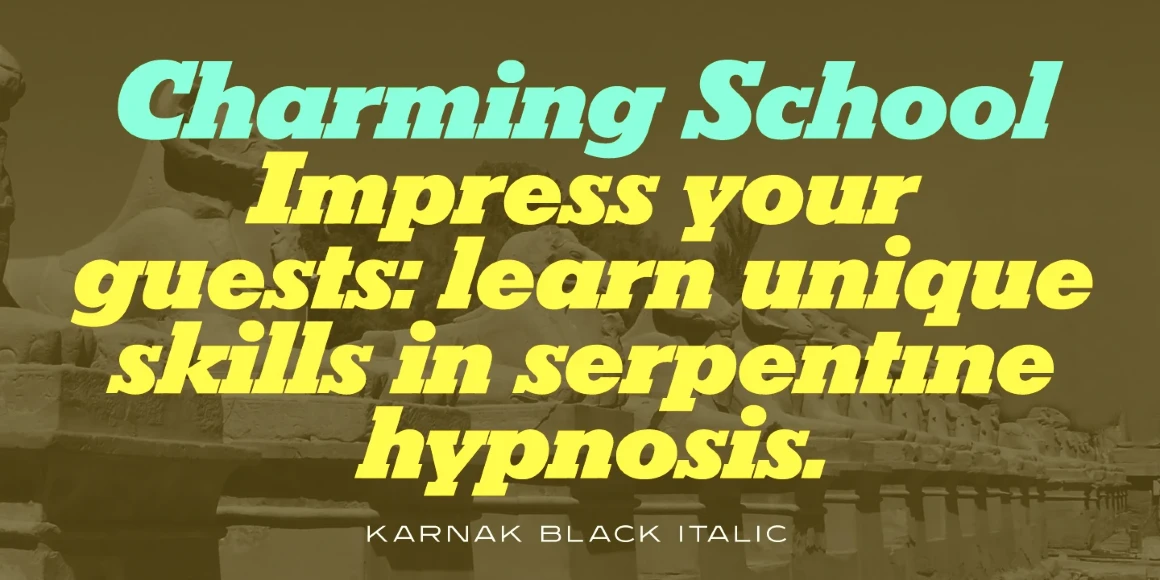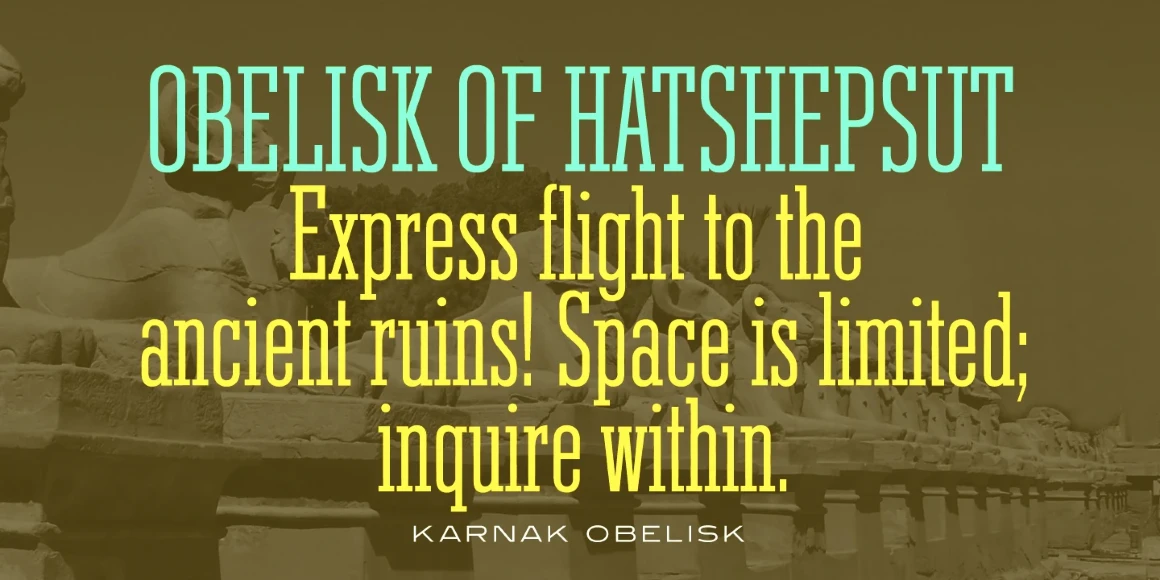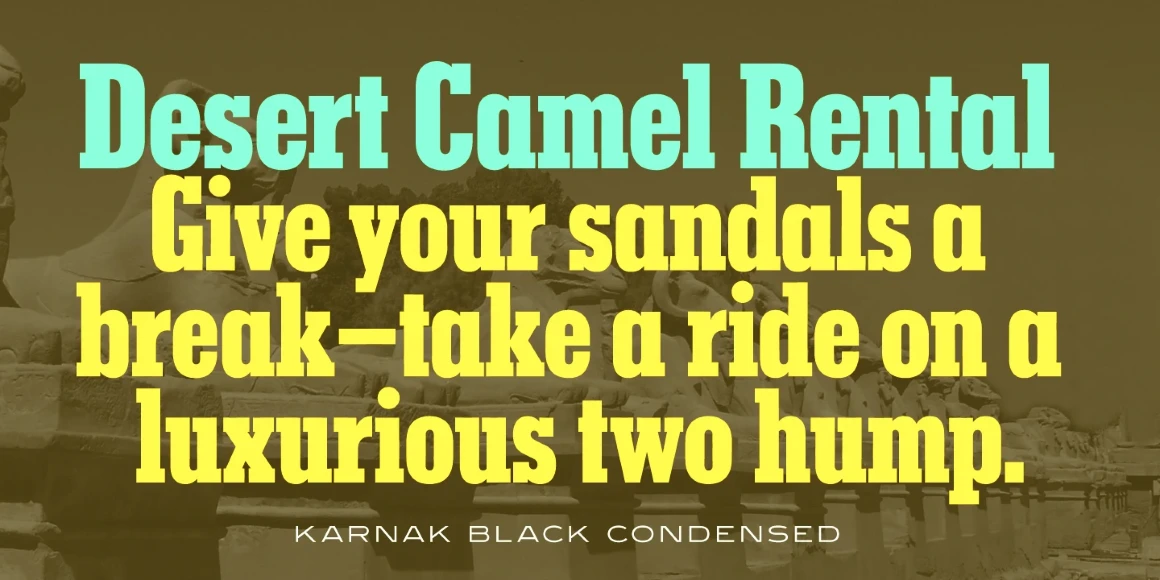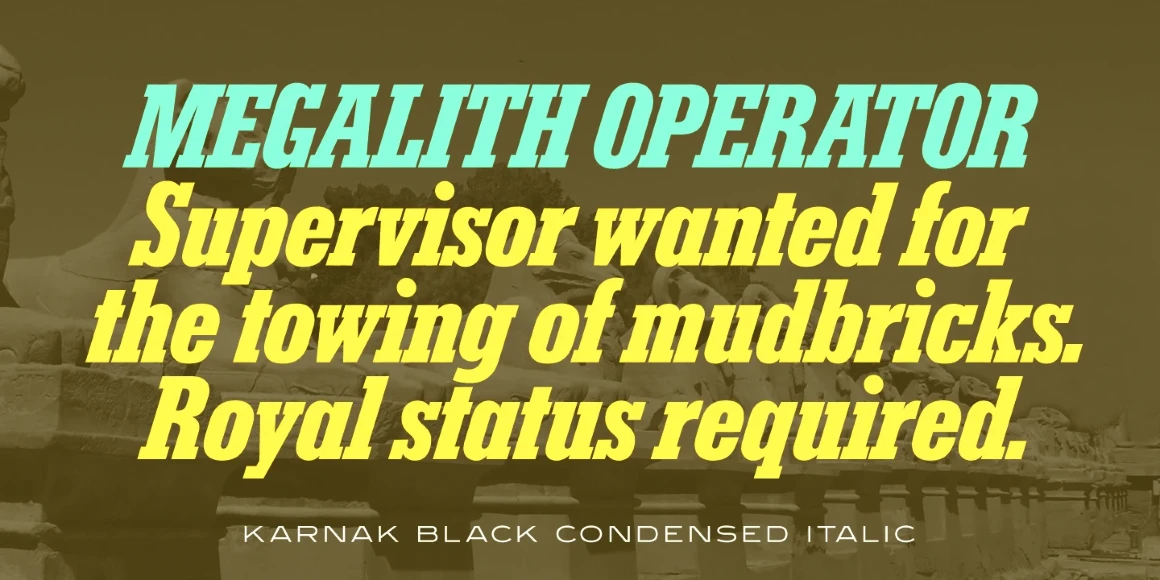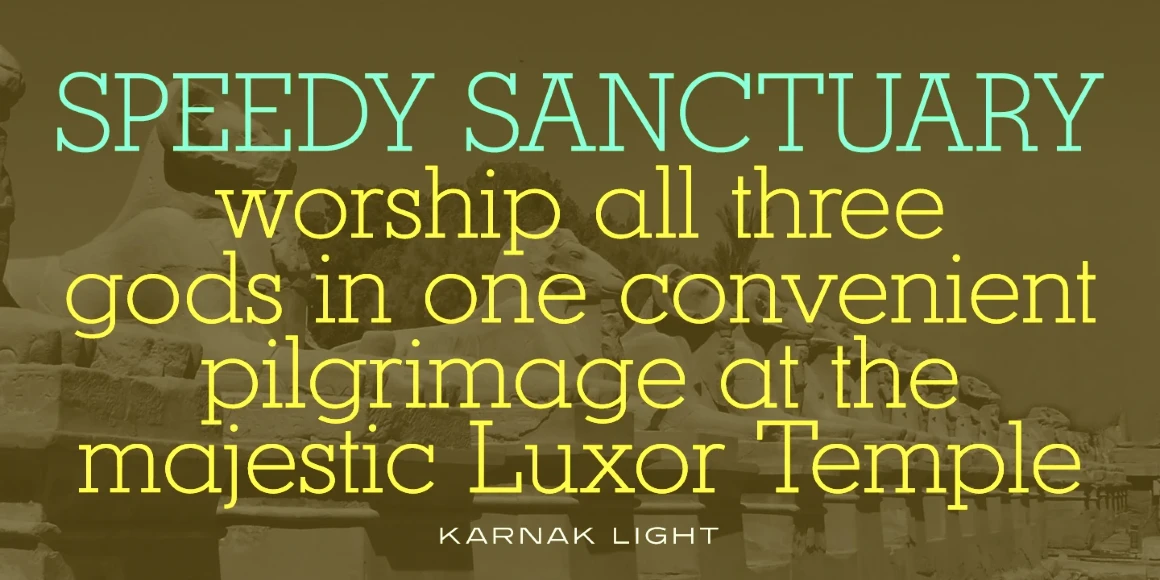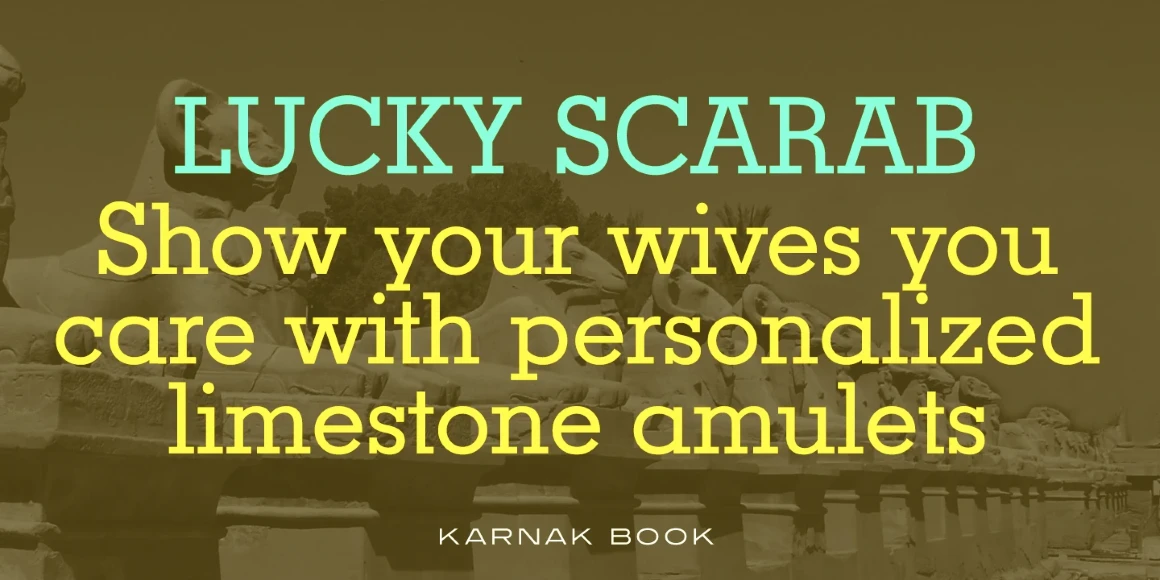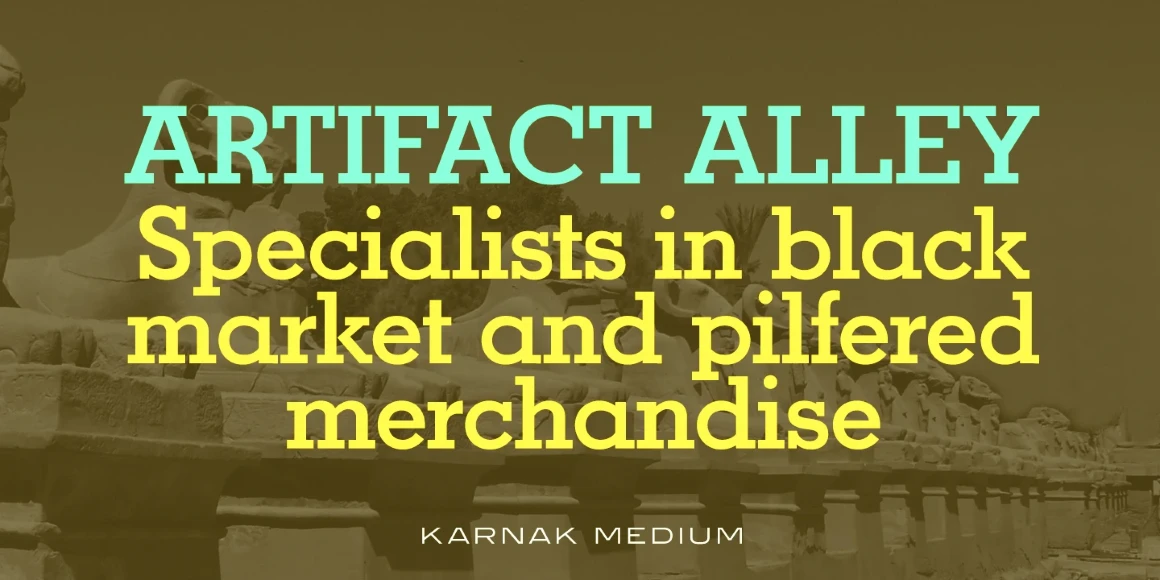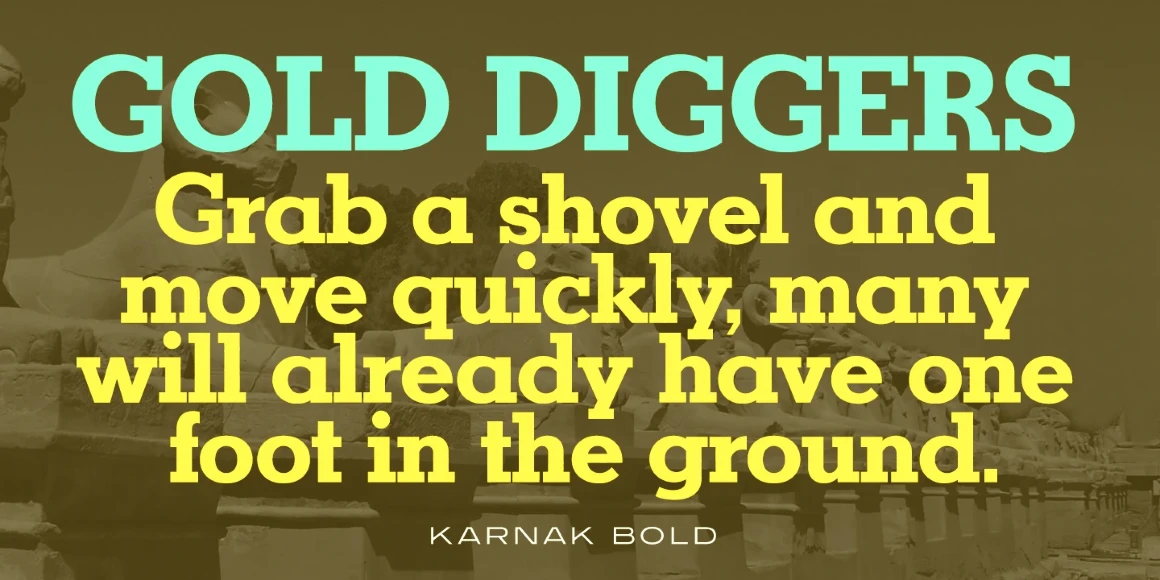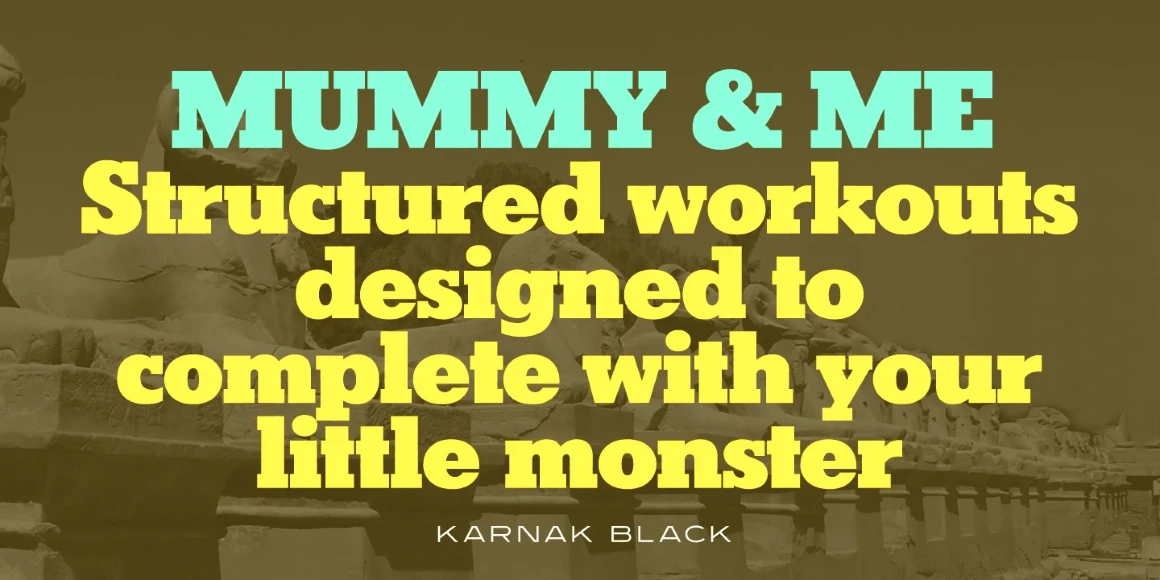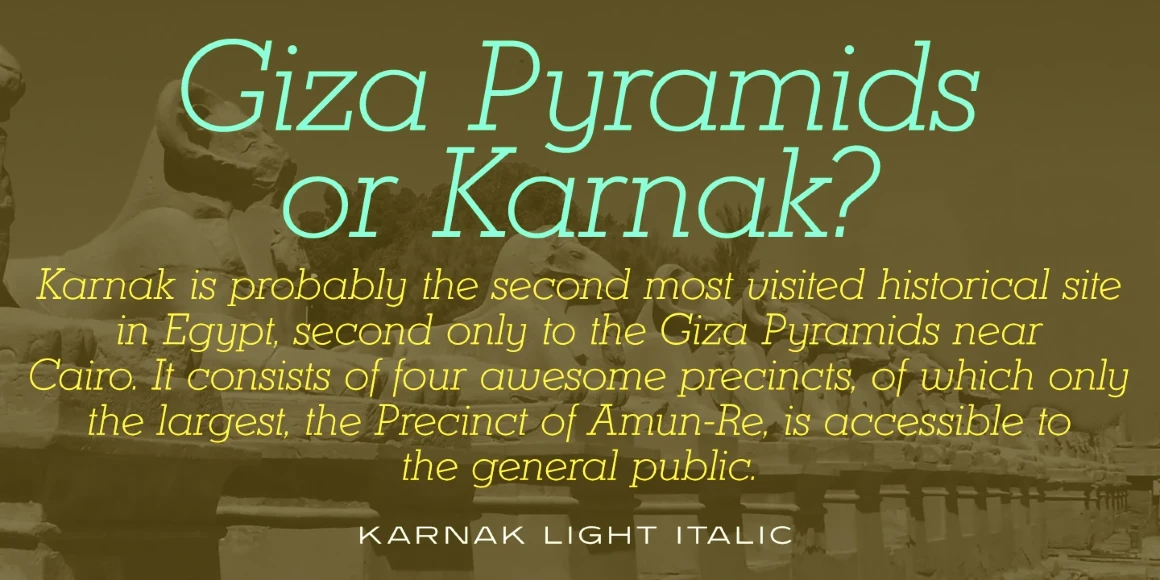
Karnak
Karnak is an Egyptian font family containing roman, italic, and condensed weights, and is exclusively licensed from the Ludlow Collection by International TypeFounders. The original family was designed by Robert H. Middleton in 1931-1942, and the new versions were produced by Steve Jackaman (ITF) and Ashley Muir in 2009. A bold weight was added, and the italics underwent a complete re-design. Karnak has optimal spacing for excellent legibility at all sizes, and has a western or academic feel.